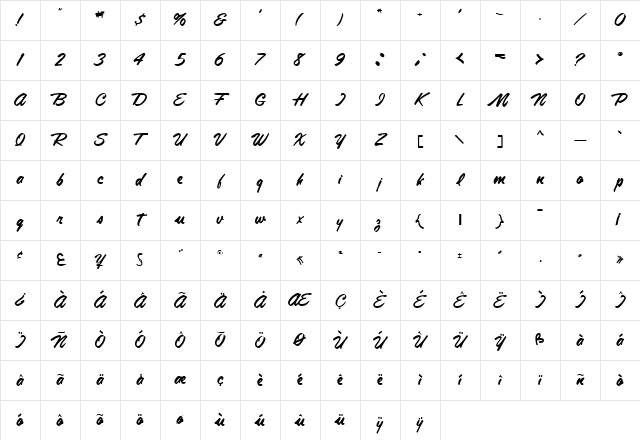
Tamte Semi-Script Regular
Design Context for Tamte Semi-Script
Tamte Semi-Script flows with the natural rhythm of handwritten lettering, making it ideal for designs that call for warmth and personal expression.
Font Pairing: Combine Tamte Semi-Script with a simple geometric sans for maximum contrast - the tension between flowing curves and clean structure is a classic typographic pairing.
Pro Tip: Use Tamte Semi-Script for short runs of text - names, titles, or taglines. Extended body copy in script faces tires the eye quickly.